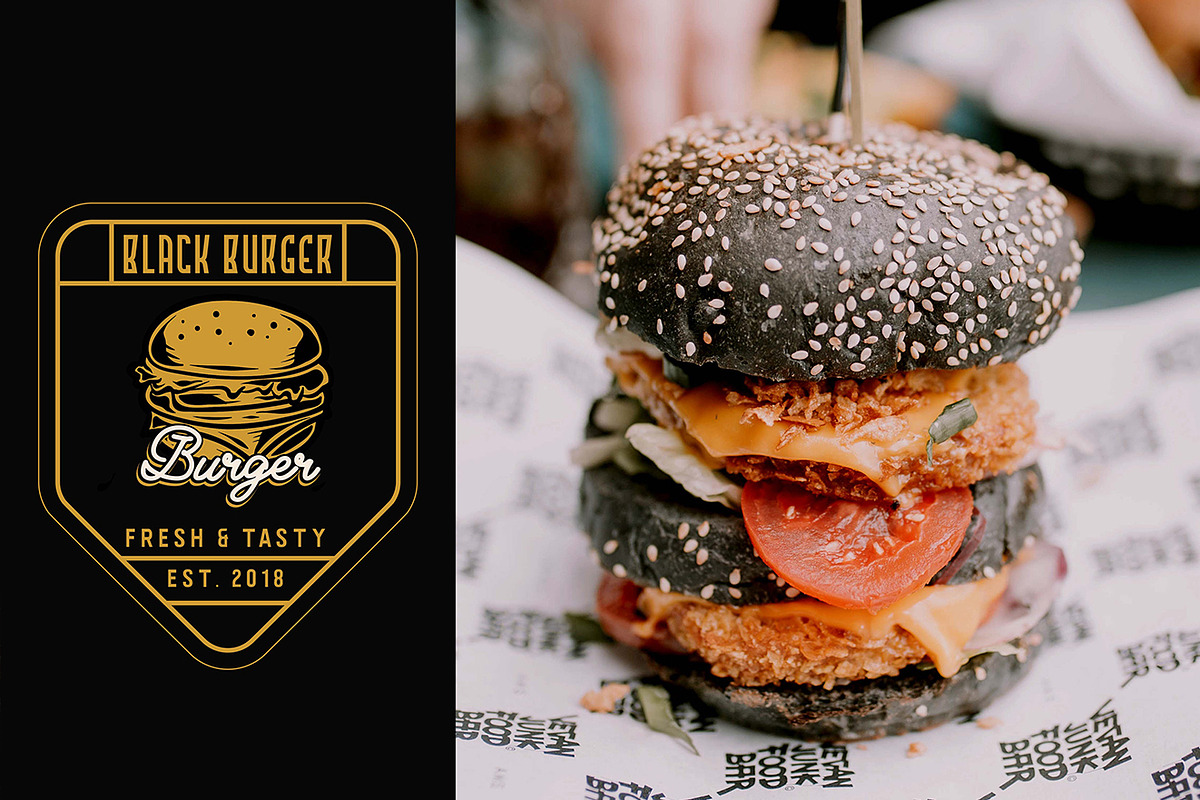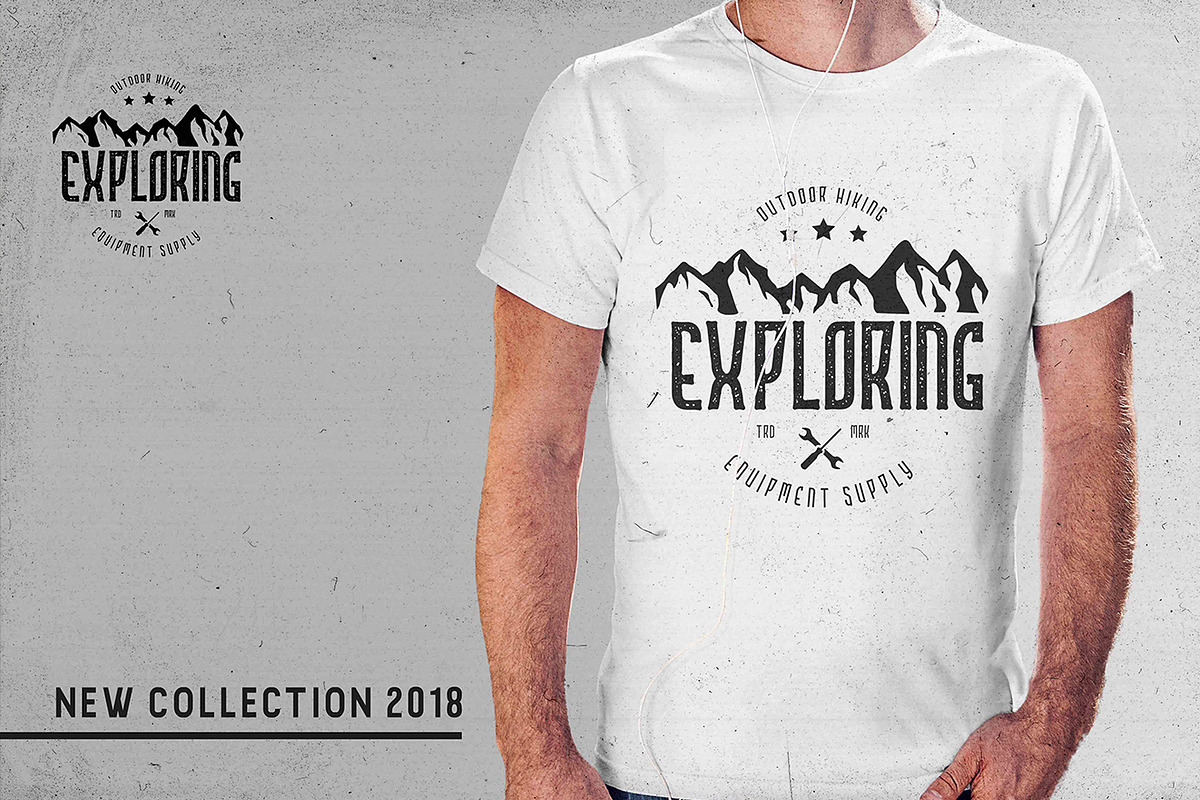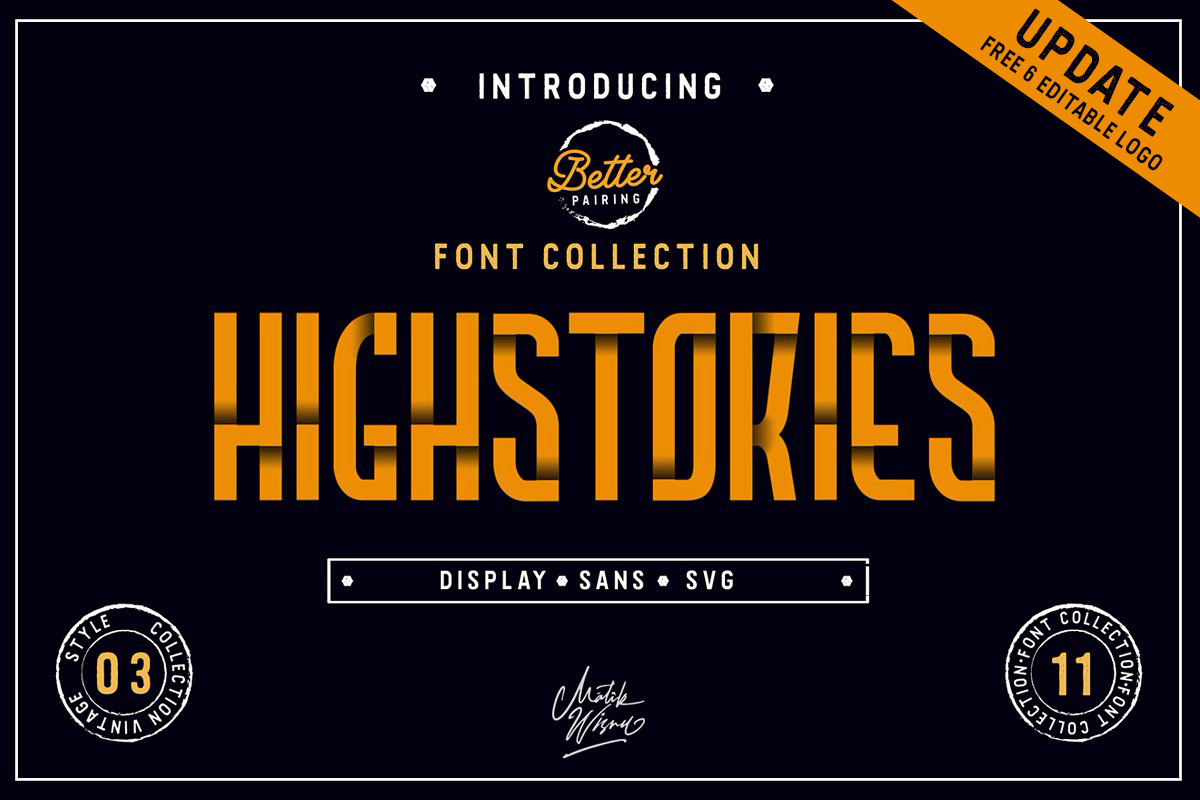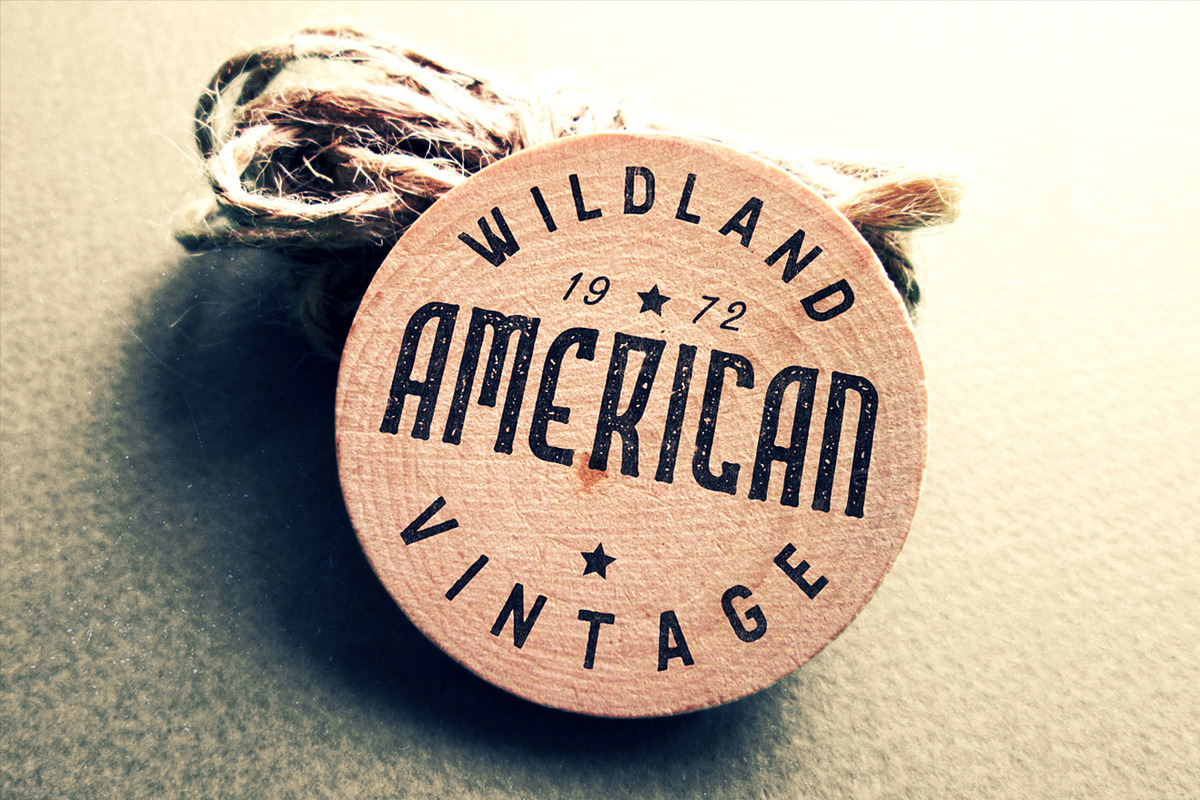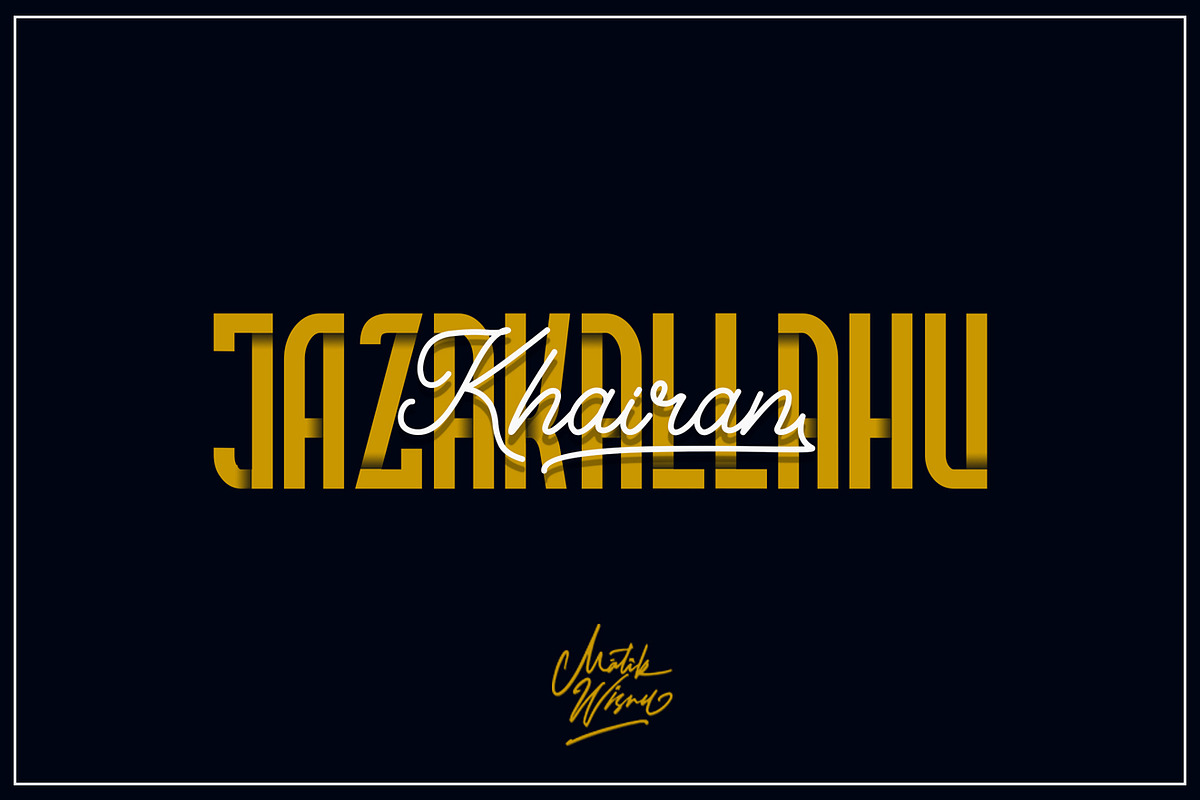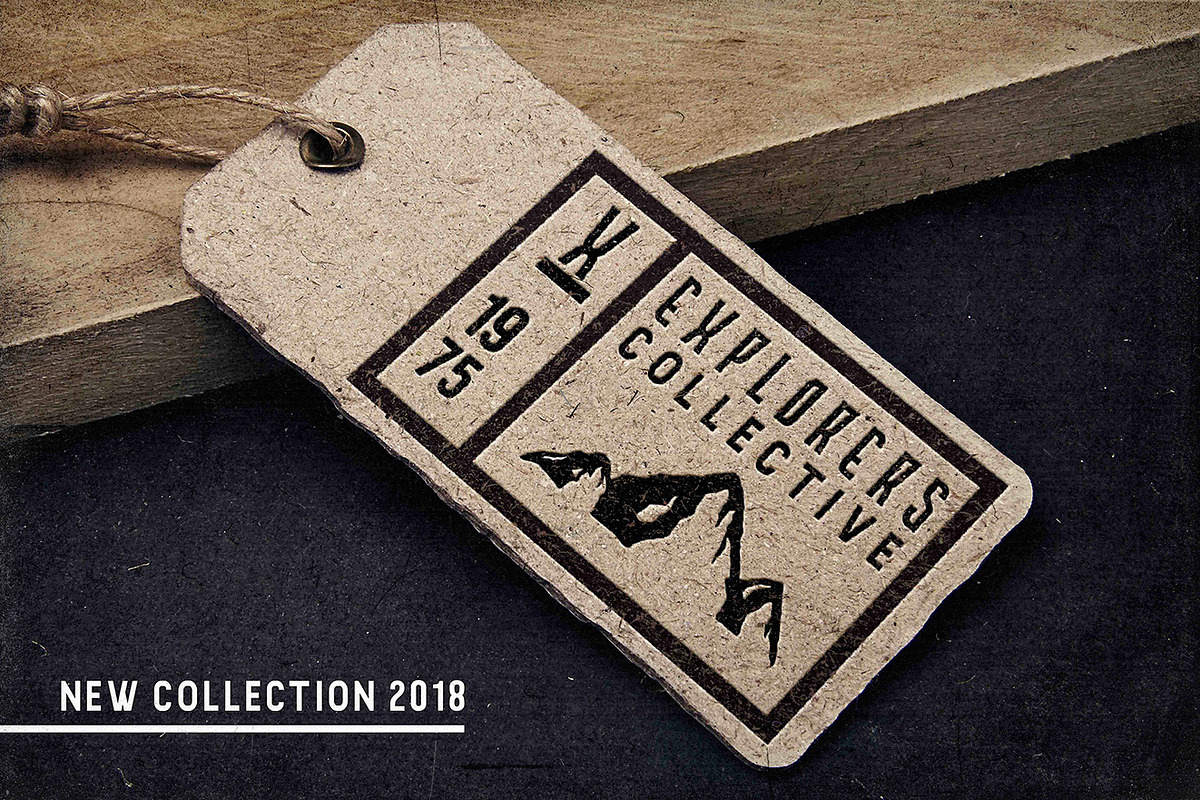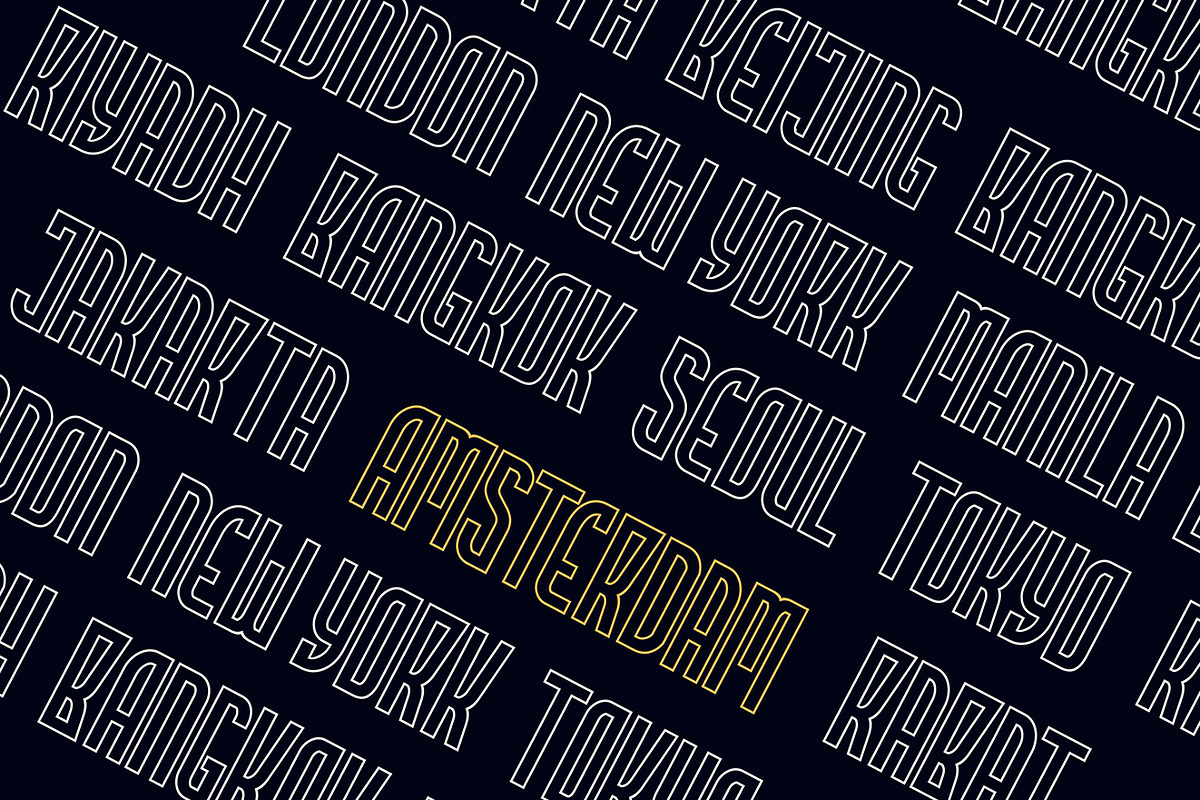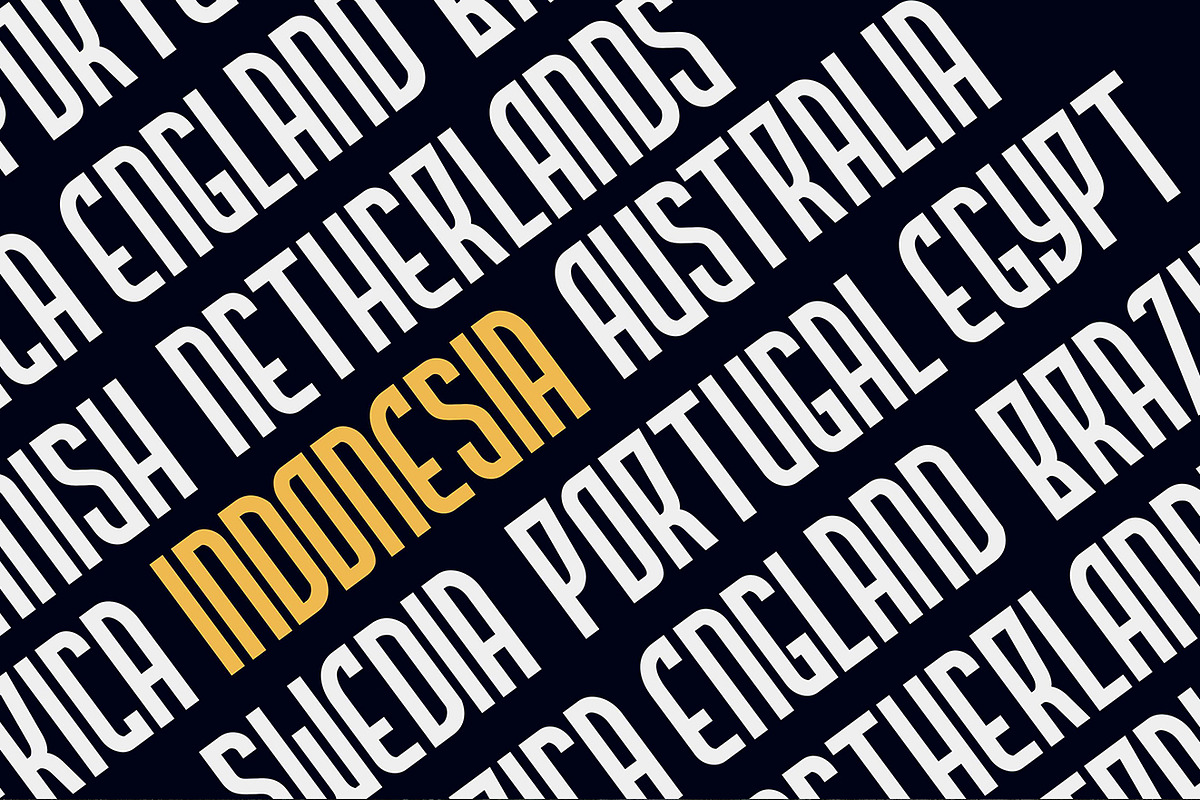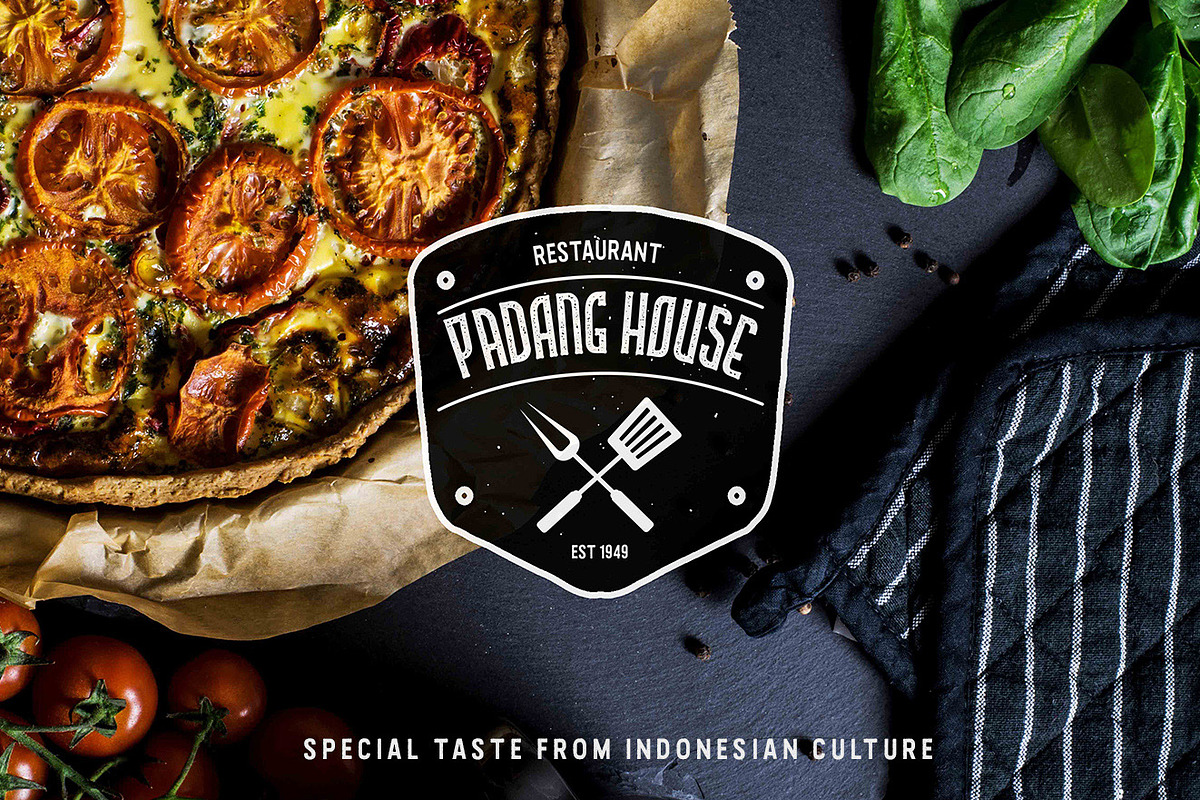
Highstories Family - Font Collection
Introducing Highstories Family with Better Pairing style. The best font collection with some interesting styles and a beautiful blend in your design, the letters look firm and easy to use in your various works best for use Poster, Branding, Logotype,t-shirt design product design,packaging and Quotes and more again.